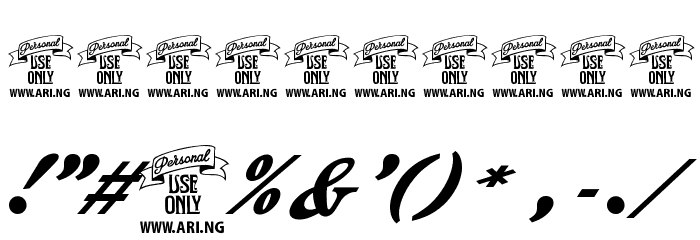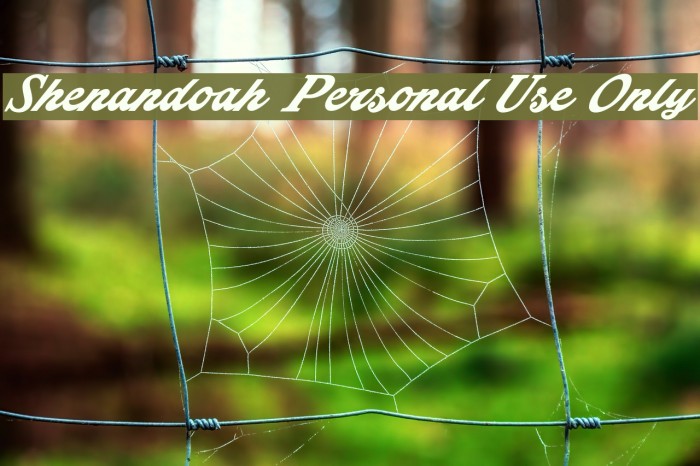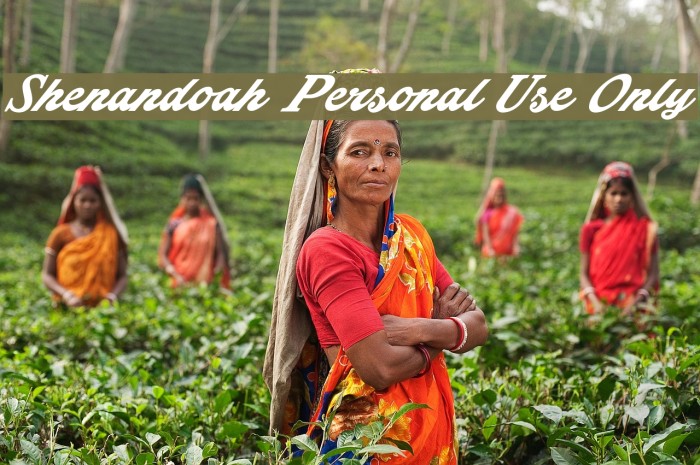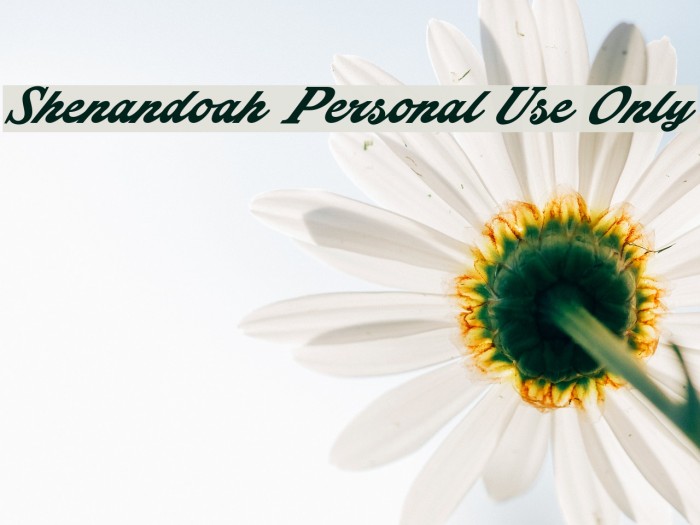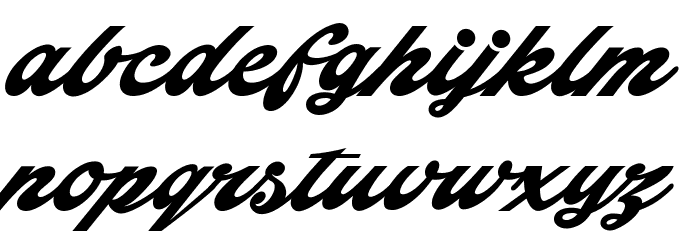
Shenandoah Personal Use Only Font
Shenandoah Personal Use Only Description
This font features a bold, cursive style with a strong emphasis on fluidity and elegance. The uppercase letters are slightly slanted, giving a dynamic and sophisticated appearance. The lowercase letters maintain a consistent flow, with smooth curves and rounded edges that enhance readability. The numbers and special characters are designed to match the overall aesthetic, providing a cohesive look across all elements. This font exudes a sense of modernity while retaining a classic charm, making it versatile for various design needs.
A bold, cursive font with elegant, fluid strokes and a modern yet classic appeal from Uncategorized fonts.
- Proposed Projects: Ideal for wedding invitations, branding, logo design, and elegant packaging.
- Use Case: Logos, Headlines, Invitations